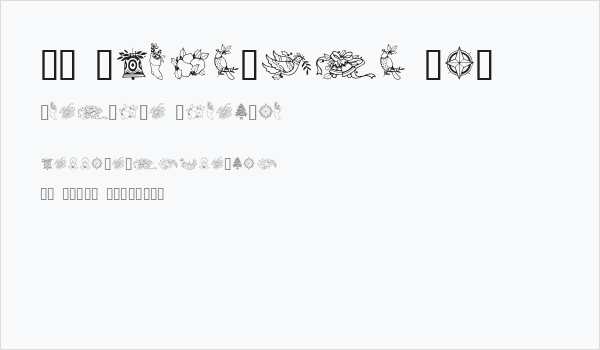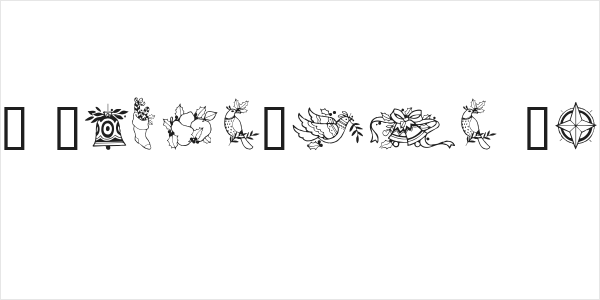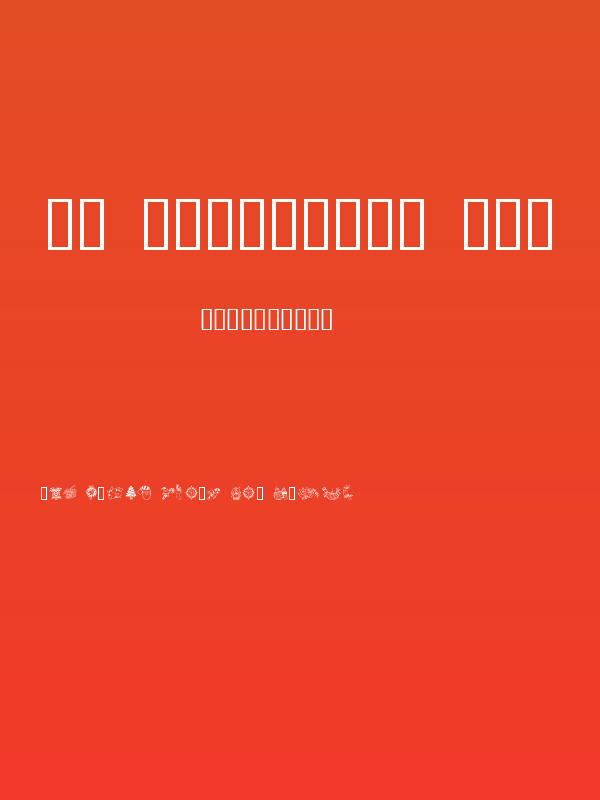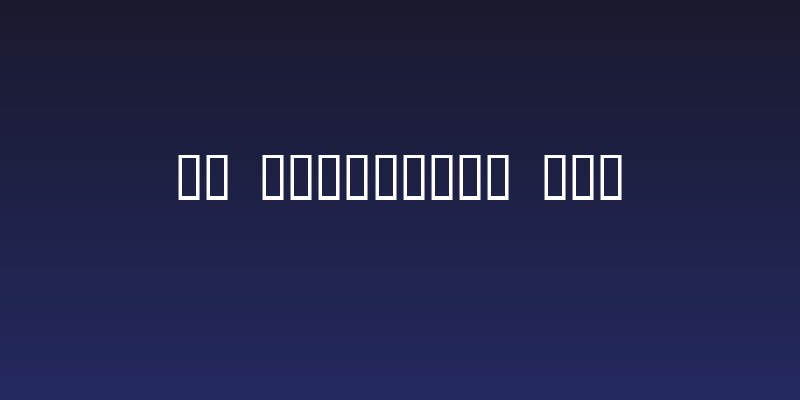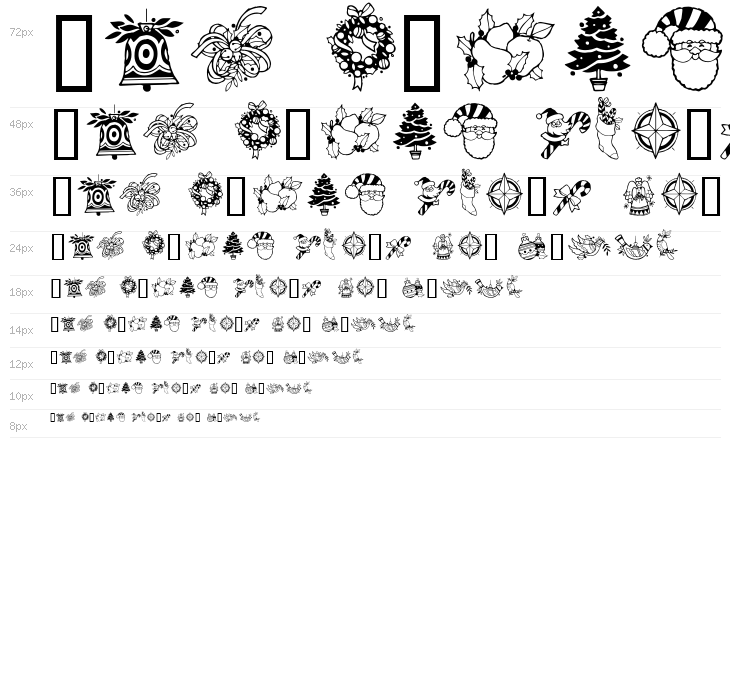
GE Christmas Joy Font
GE Christmas Joy Description
This decorative font is a festive collection of Christmas-themed illustrations, each representing a letter or character. The designs include classic holiday motifs such as Santa Claus, Christmas trees, ornaments, holly, and bells, all intricately detailed to capture the spirit of the season. Each character is uniquely crafted, making it ideal for adding a whimsical and joyful touch to holiday projects. The font is not meant for traditional text but rather for creating a festive atmosphere through its playful and artistic representations.
| Use Case | Logos, Headlines, Decorative elements |
| Proposed Projects | Ideal for holiday greeting cards, festive banners, Christmas party invitations, and seasonal decorations. |